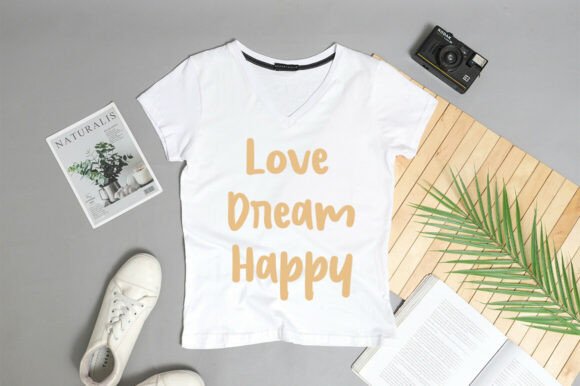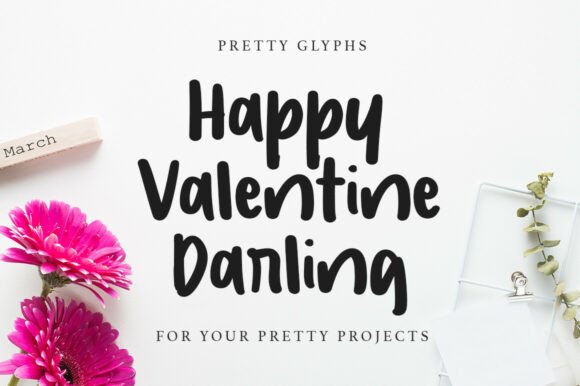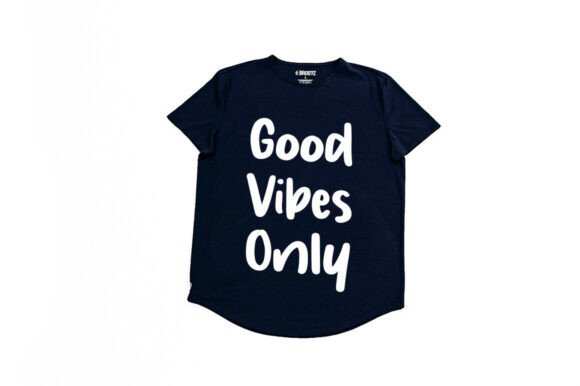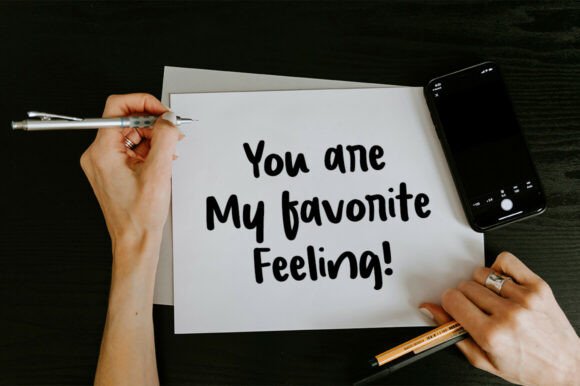
The Daily Notes Font: Your New Go-To for Casual, Handwritten Style
Have you ever been in the middle of a design project, and suddenly, you’re stuck on finding the perfect font? I recall a recent experience where I was working on a client’s digital planner, and I just couldn’t find a font that felt right. It needed to be casual, yet stylish; easy to read, yet unique. That’s when I stumbled upon the Daily Notes font, and it instantly became my new favorite companion for everyday design projects.
A Personal Review: What I Love and What to Consider
- ✅ The Daily Notes font has a clean, approachable aesthetic that makes it perfect for a wide range of projects, from digital planners to social media graphics.
- ✅ Its balanced weight ensures that even long blocks of text remain easy to read, making it a great choice for recipe cards, blog posts, or long-form stationery.
- ✅ The font’s casual, handwritten style adds a cozy and organized vibe to any project, giving it a “behind-the-scenes” and authentic feel.
- ✅ It’s incredibly versatile and can be used for various design projects, including logos, social media graphics, apparel, and more.
- ⚠️ While the Daily Notes font is generally excellent for body text, it might not be the best choice for very large headings or titles, as its casual style might get lost at larger sizes.
- ⚠️ Some users might find the font’s style too casual for certain professional projects, so it’s essential to consider your project’s tone and audience.
The Story Behind Daily Notes
The Daily Notes font was designed with the intention of creating a clean, approachable typeface that captures the essence of handwritten notes. The designer aimed to create a font that feels like your favorite pen – one that adds a cozy and organized vibe to any project. With its balanced weight and casual style, Daily Notes has become a go-to font for designers, crafters, and creative hobbyists alike.
| Font Name | Daily Notes Font |
| Author | Pretty Glyphs |
Q: What makes Daily Notes suitable for digital planners and journals?
A: The Daily Notes font’s clean, approachable aesthetic and balanced weight make it perfect for reading and writing in digital planners and journals.
Q: Can I use Daily Notes for social media graphics and quote designs?
A: Absolutely! The Daily Notes font’s casual, handwritten style adds a unique touch to social media graphics and quote designs, making them stand out.